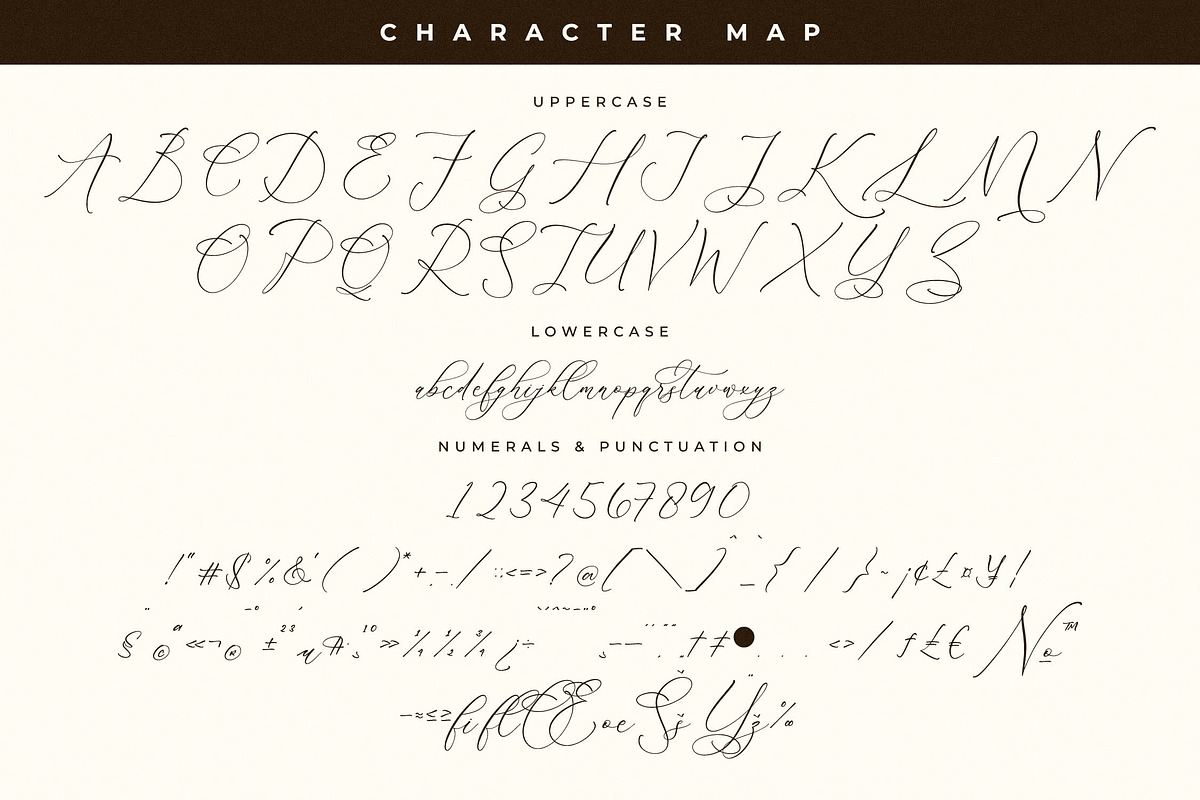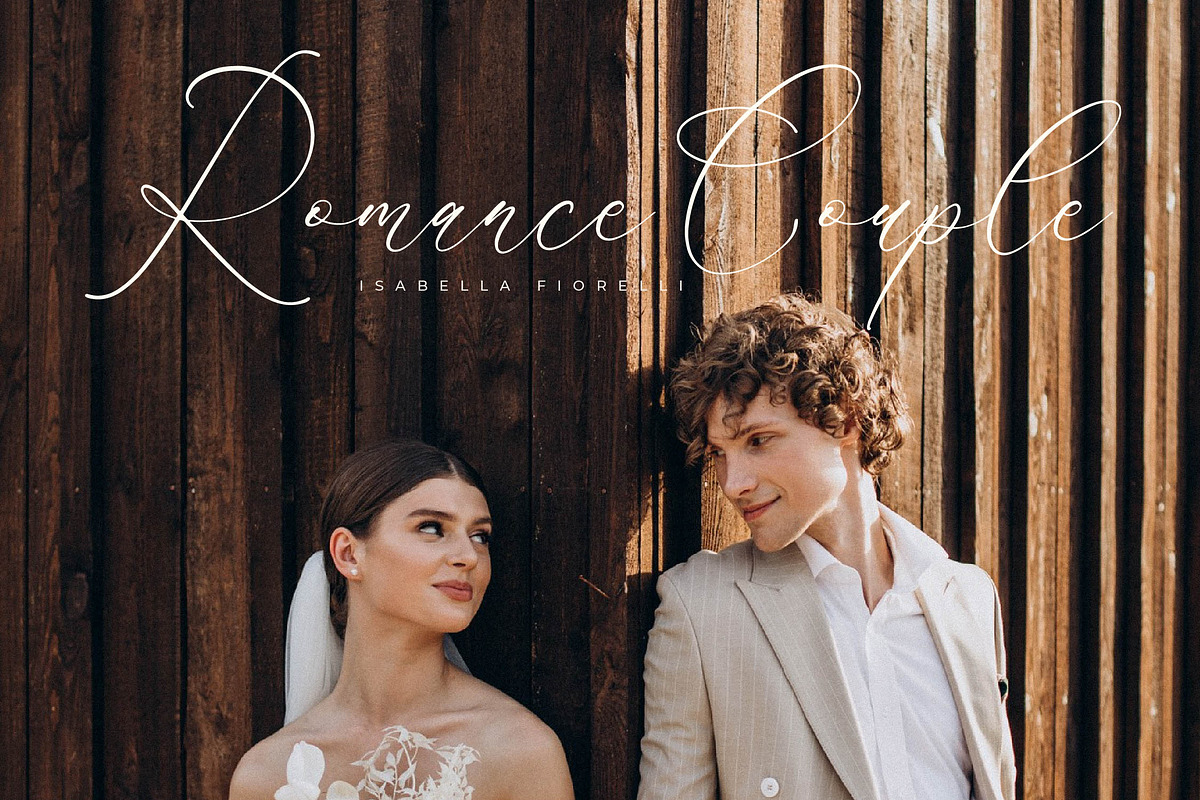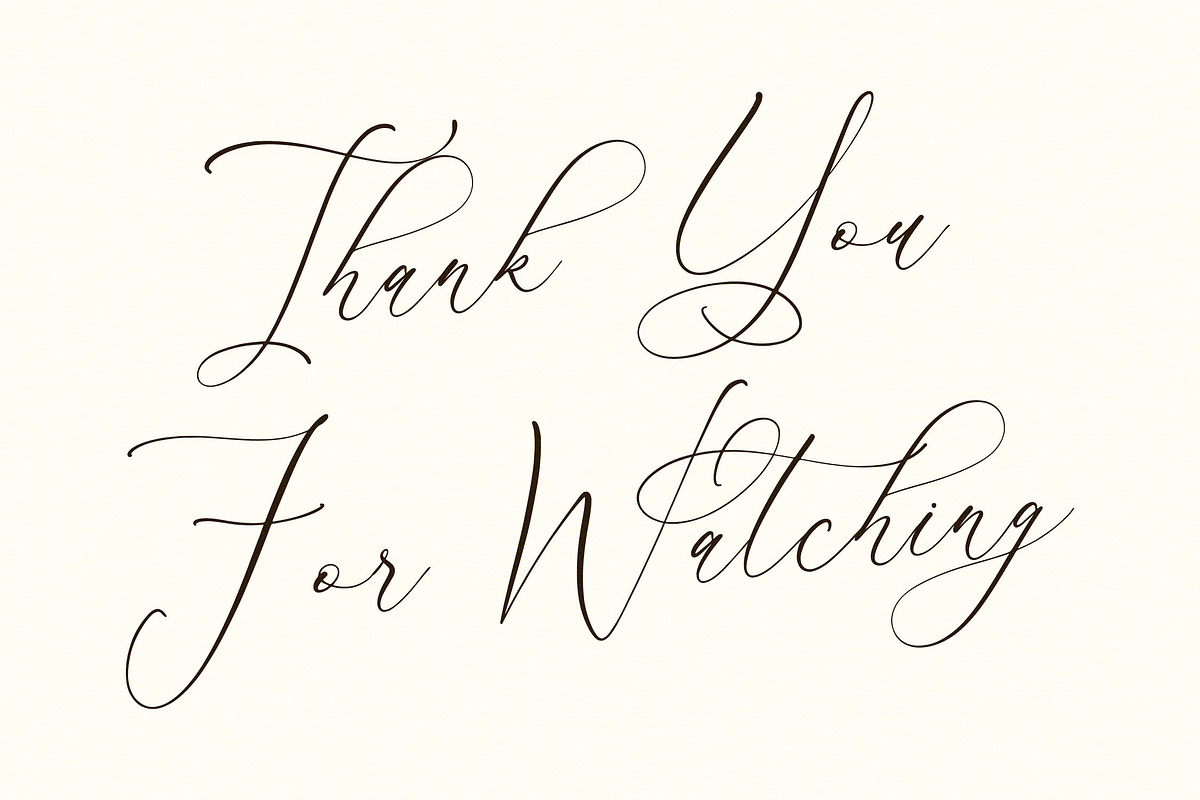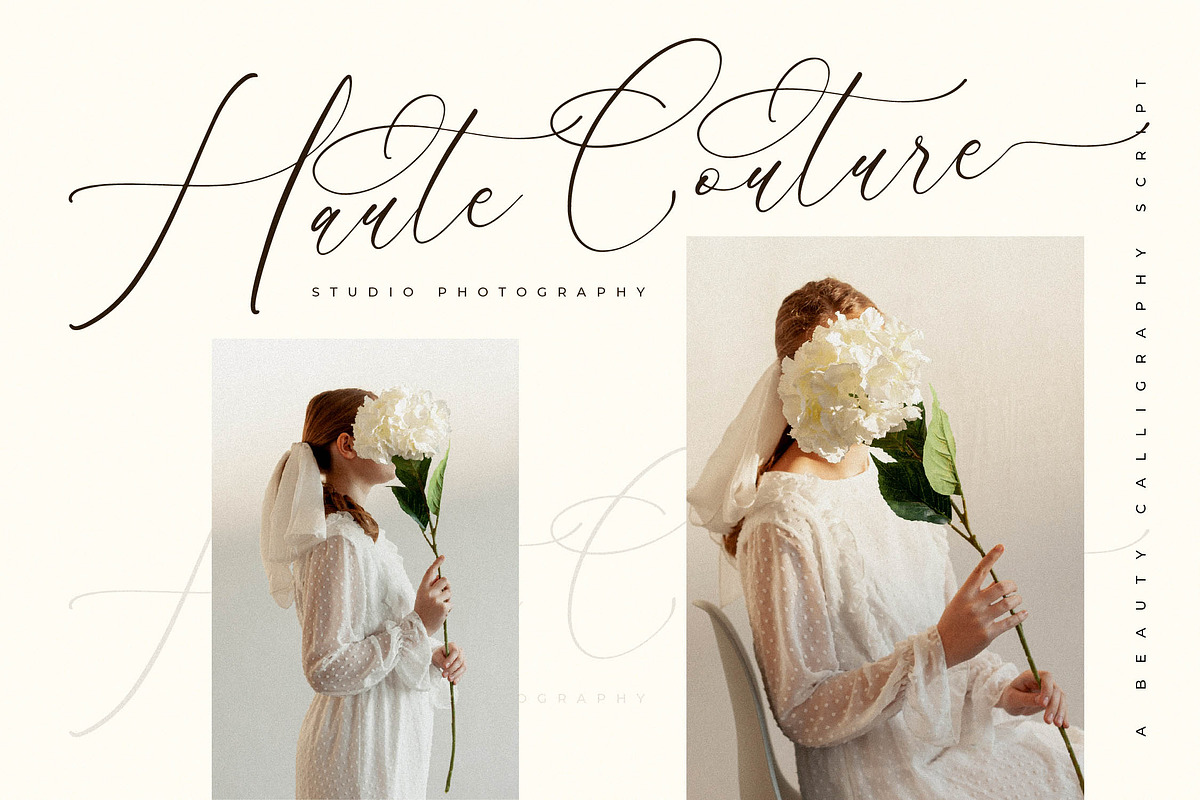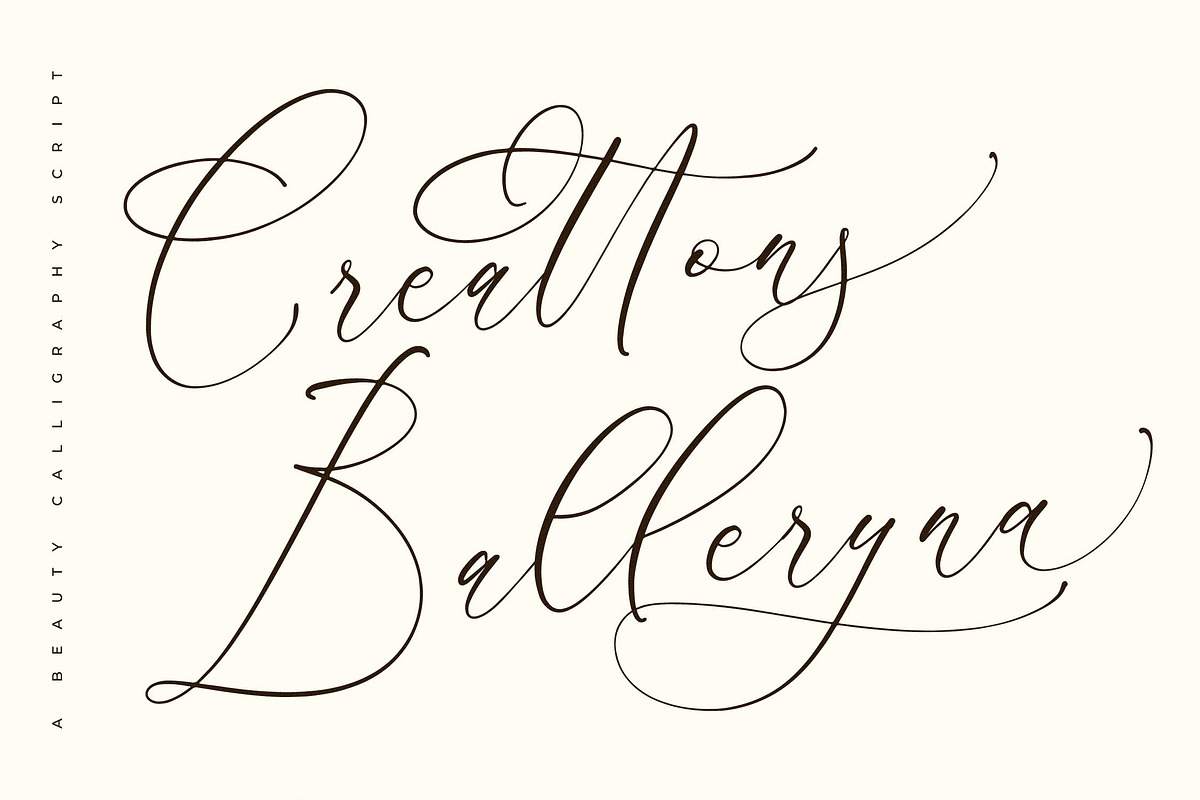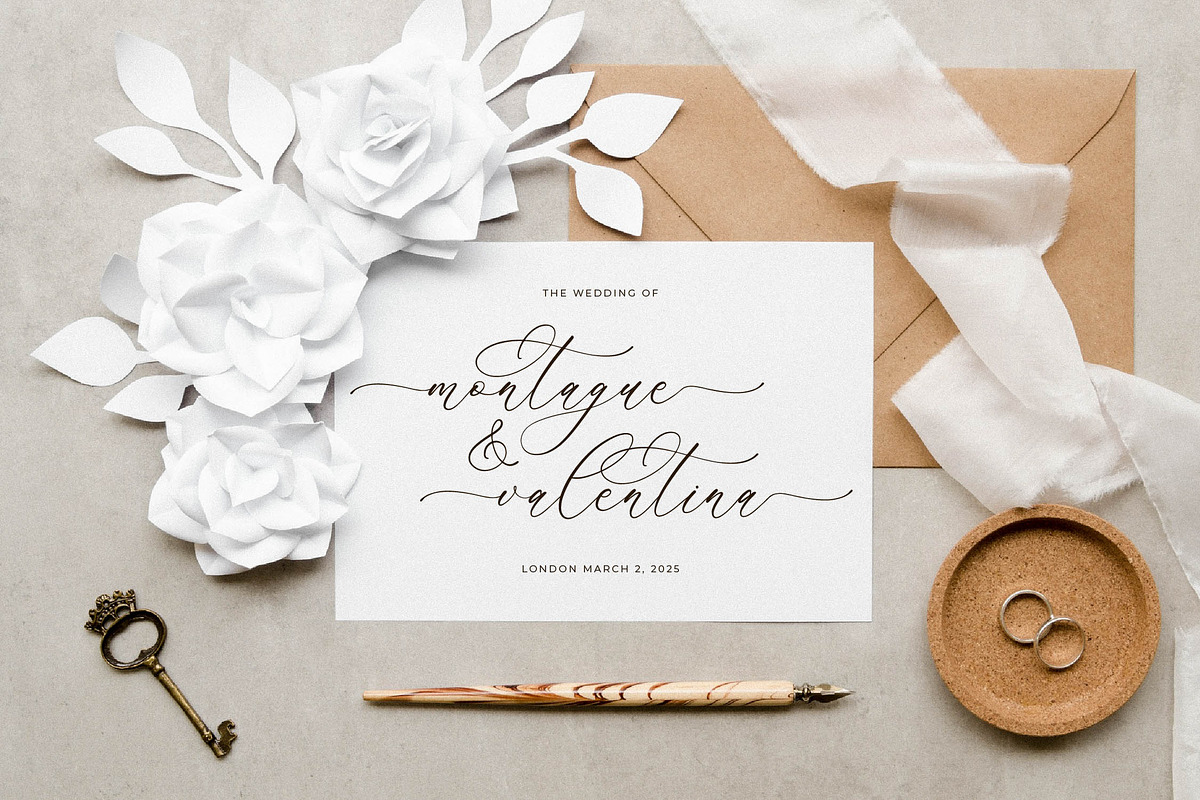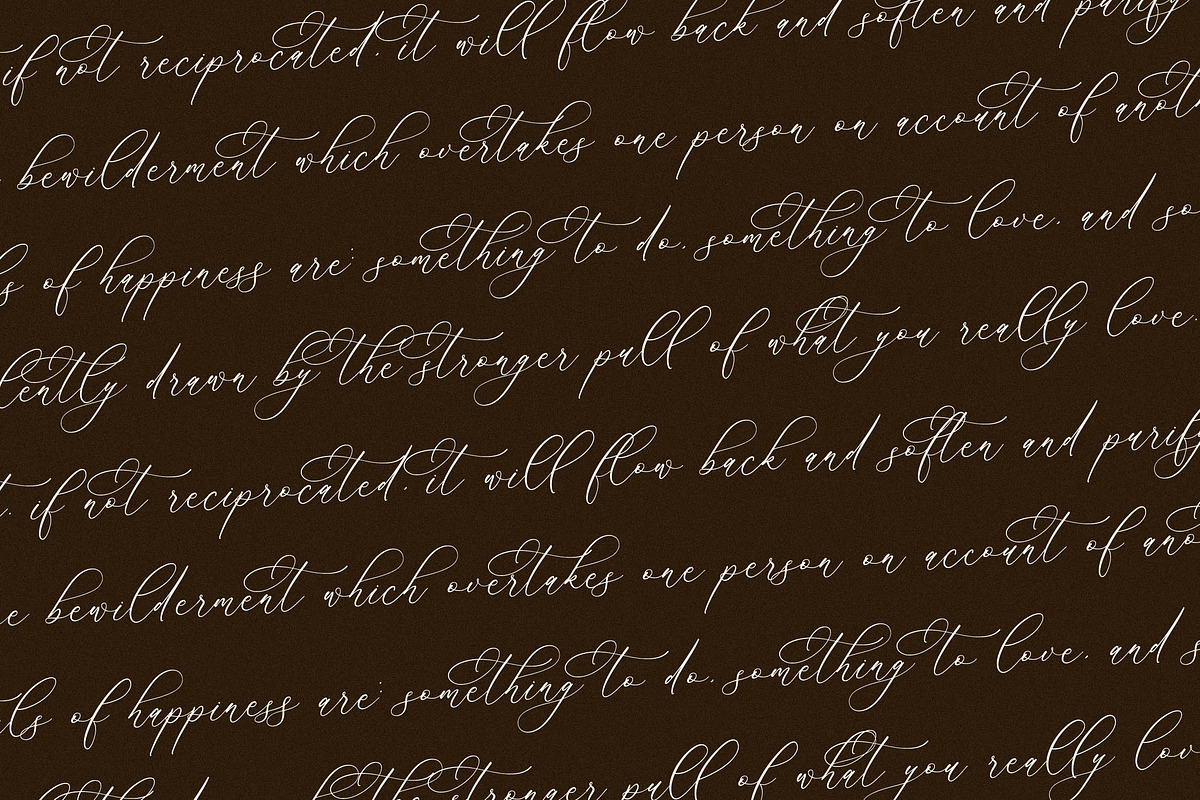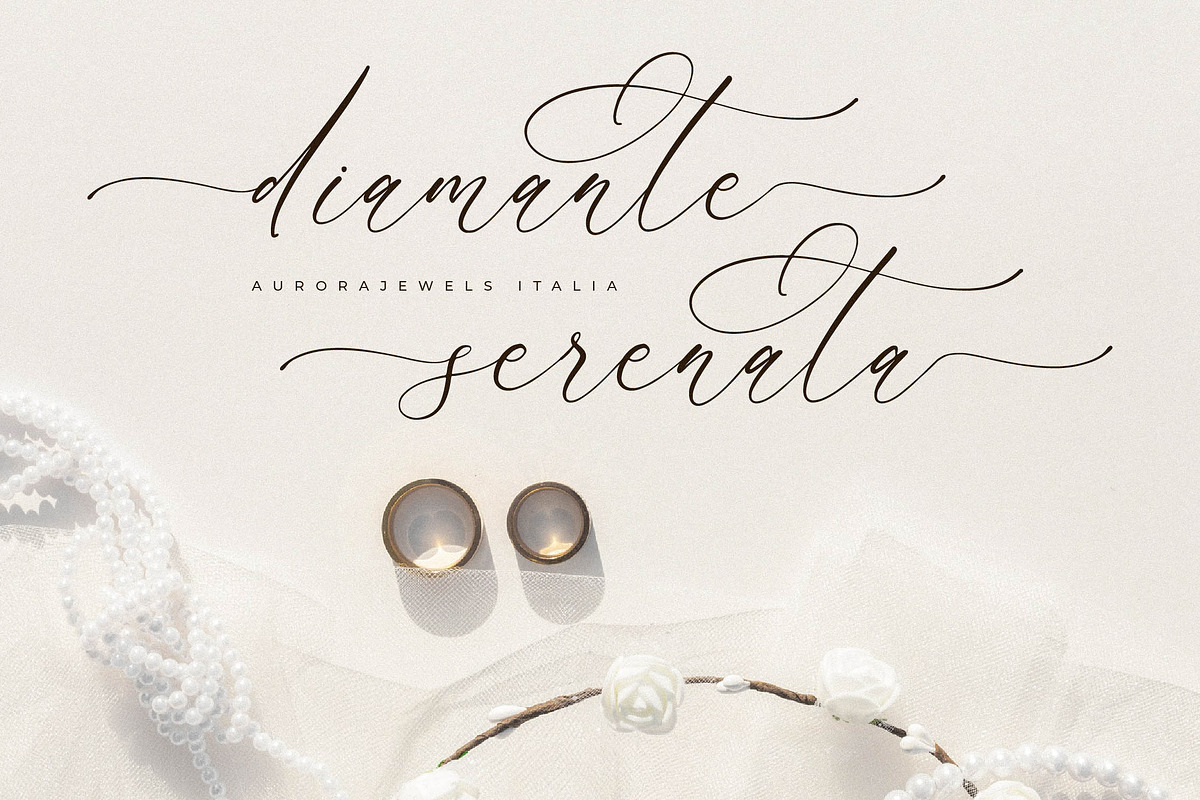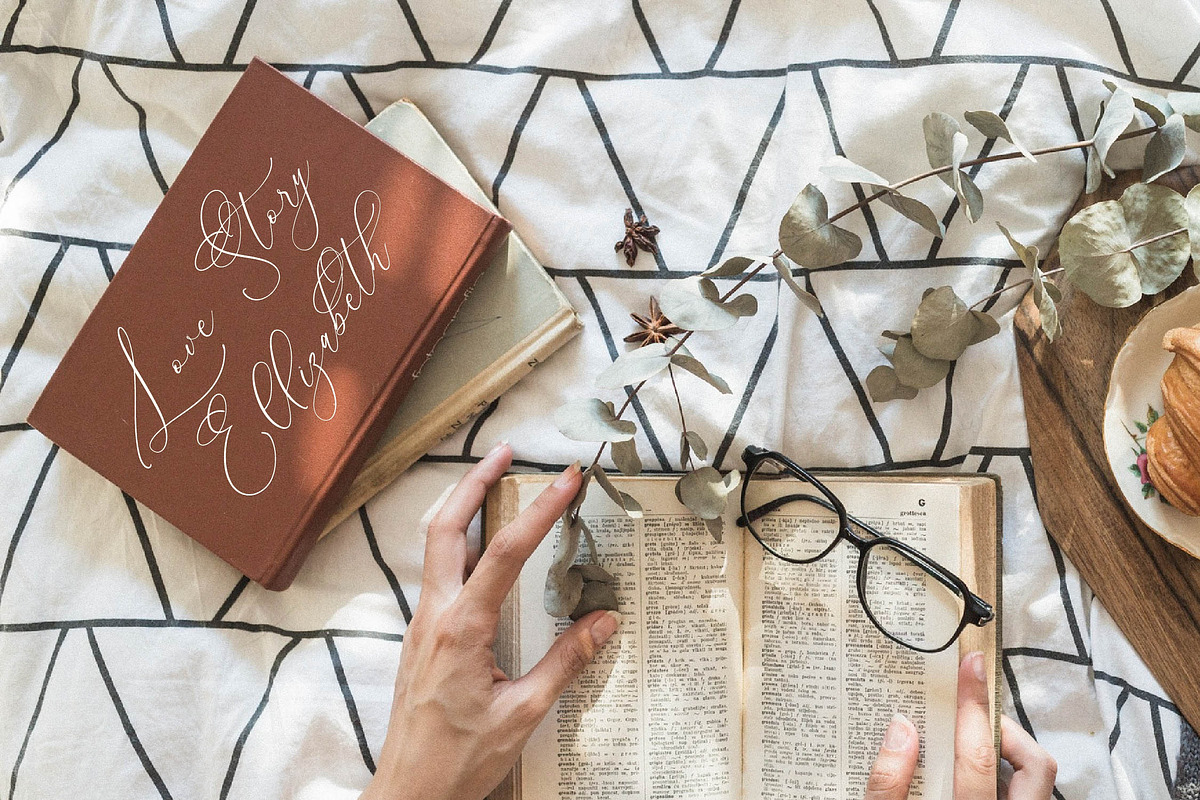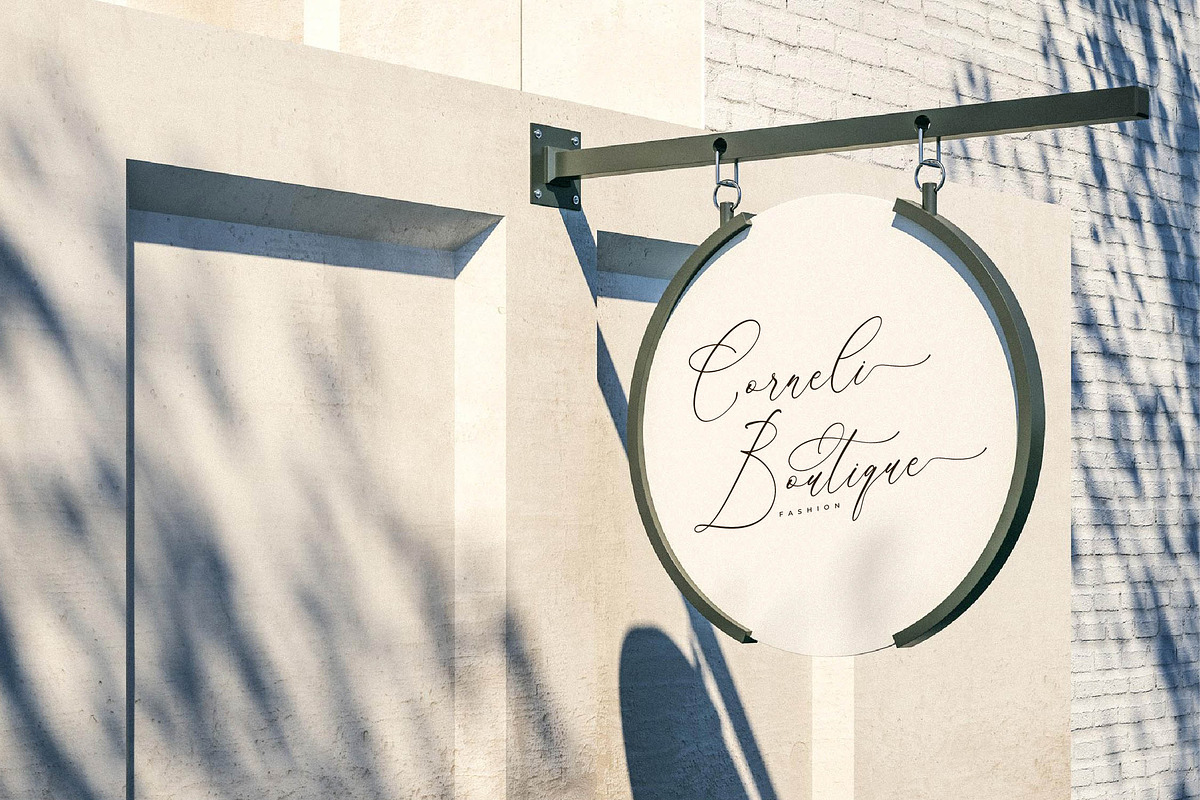
Creattons Balleryna A Beauty Script
Proudly present Creattons Balleryna – Beauty Calligraphy Script , created by Storytype, A luxury script that has own unique style & modern look. This typeface is perfect for an elegant & luxury logo, book or movie title design, fashion brand, magazine, clothes, lettering, quotes, and so much more.